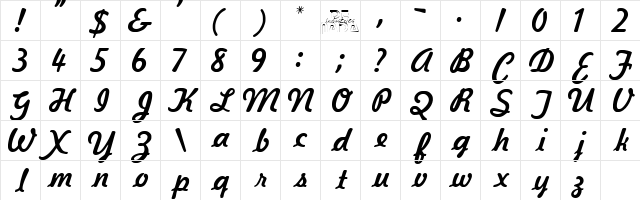
Kavaler Kursive Free Font
Kavaler Kursive
Style: Kursive
Kavaler Kursive Family
Design Context for Kavaler
Kavaler is a composed and adaptable typeface that performs quietly and consistently across a wide range of design contexts. The slanted form adds forward momentum and visual energy.
Pro Tip: Use Kavaler for emphasis, pull quotes, and subheadings where its slanted energy can add rhythm to the layout.